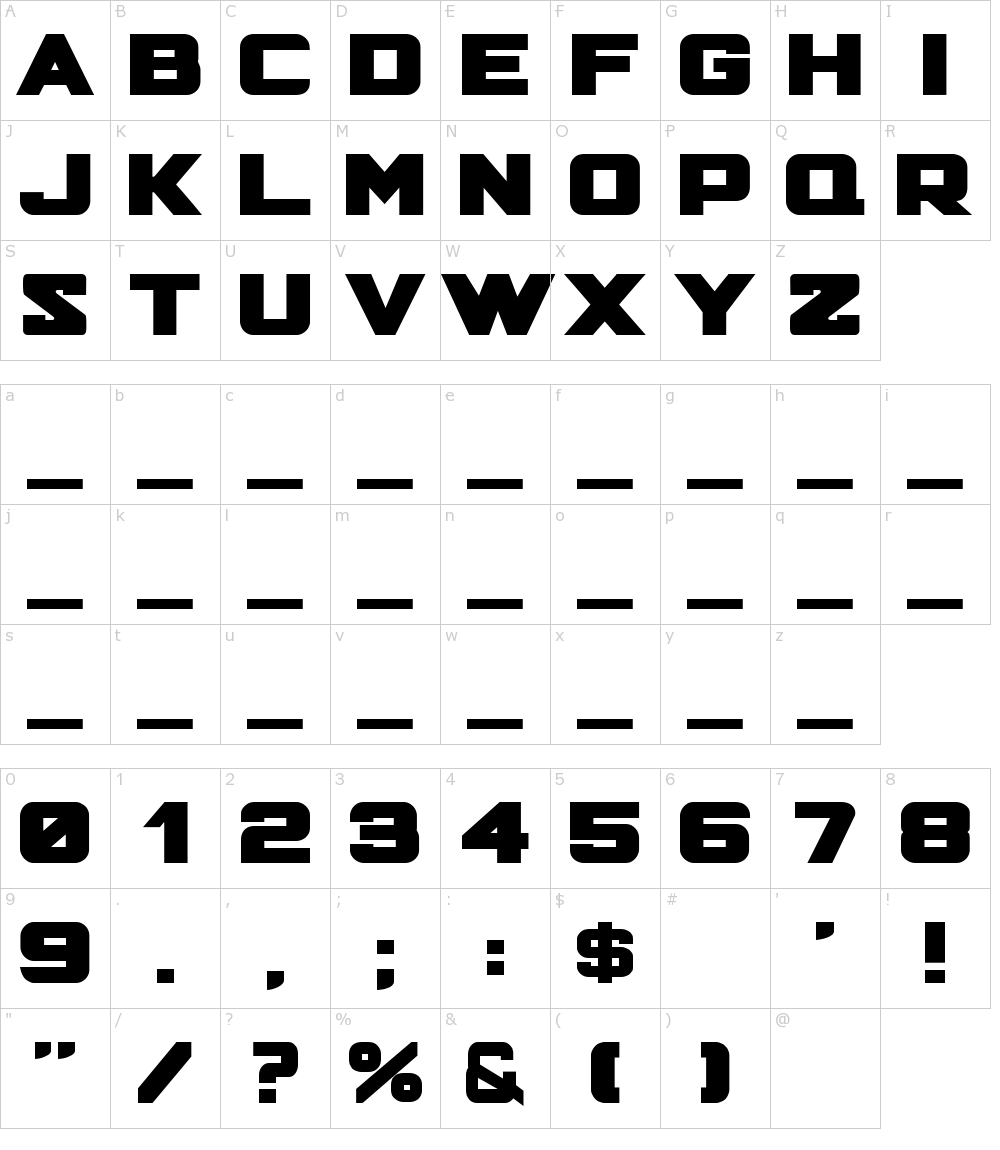
Hunter X Hunter Font Name
Comic Hunter Font
All Known Arcs, Ranked Anime Such As Hunter X Hunter, Highschool Dxd, Kiss X Sis, Hidamari Sketch X Honeycomb And More All Contain The Incorrectly Translated ×, And Are Generally Pronounced Differently.
The alphabet in the world of hunter × hunter is made up of runic looking symbols. Hunter x hunter generator which generation do you belong to? I don't think it's possible to straight up convert each hunter character to a related english character or set of characters.
Yoshihiro Togashi May Have Drawn The Fictional Cipher Inverted By Accident.
In roman transliteration the long vowel [o] is usually indicated by ō, oo, or ou, so the hunter × hunter alphabet character that makes more sense to be used is the one that look like an inverted uppercase letter u (similar to: Submit your funny nicknames and cool gamertags and copy the best from the list. Most writing in hunter x hunter is in a syllabary, rather than an alphabet, that correlates exactly to the syllabary of the japanese written language (hiragana and katakana).
Hunter X Hunter Font Name.
In Reality, These Symbols Are Simple Substitutions For Japanese Kana, The Collective Term For Hiragana And Katakana;